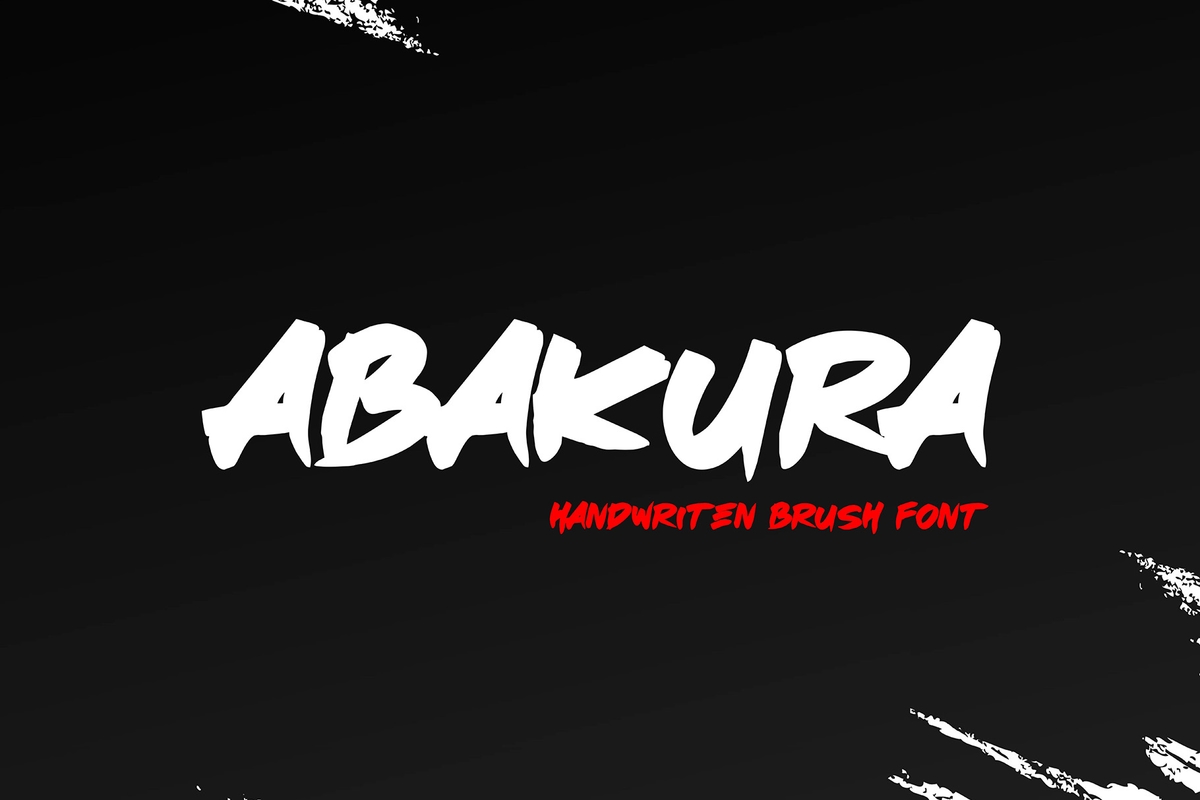
Abakura
This handwritten brush typeface captures the raw intensity of expressive street lettering with bold strokes, natural pressure changes, and energetic movement. Inspired by fast hand-drawn writing, urban brush tags, and contemporary street typography, this typeface is designed to deliver strong visual impact while maintaining organic flow and readability. The character shapes are intentionally imperfect, reflecting real brush movement and natural handwriting rhythm. Each letter feels alive, aggre